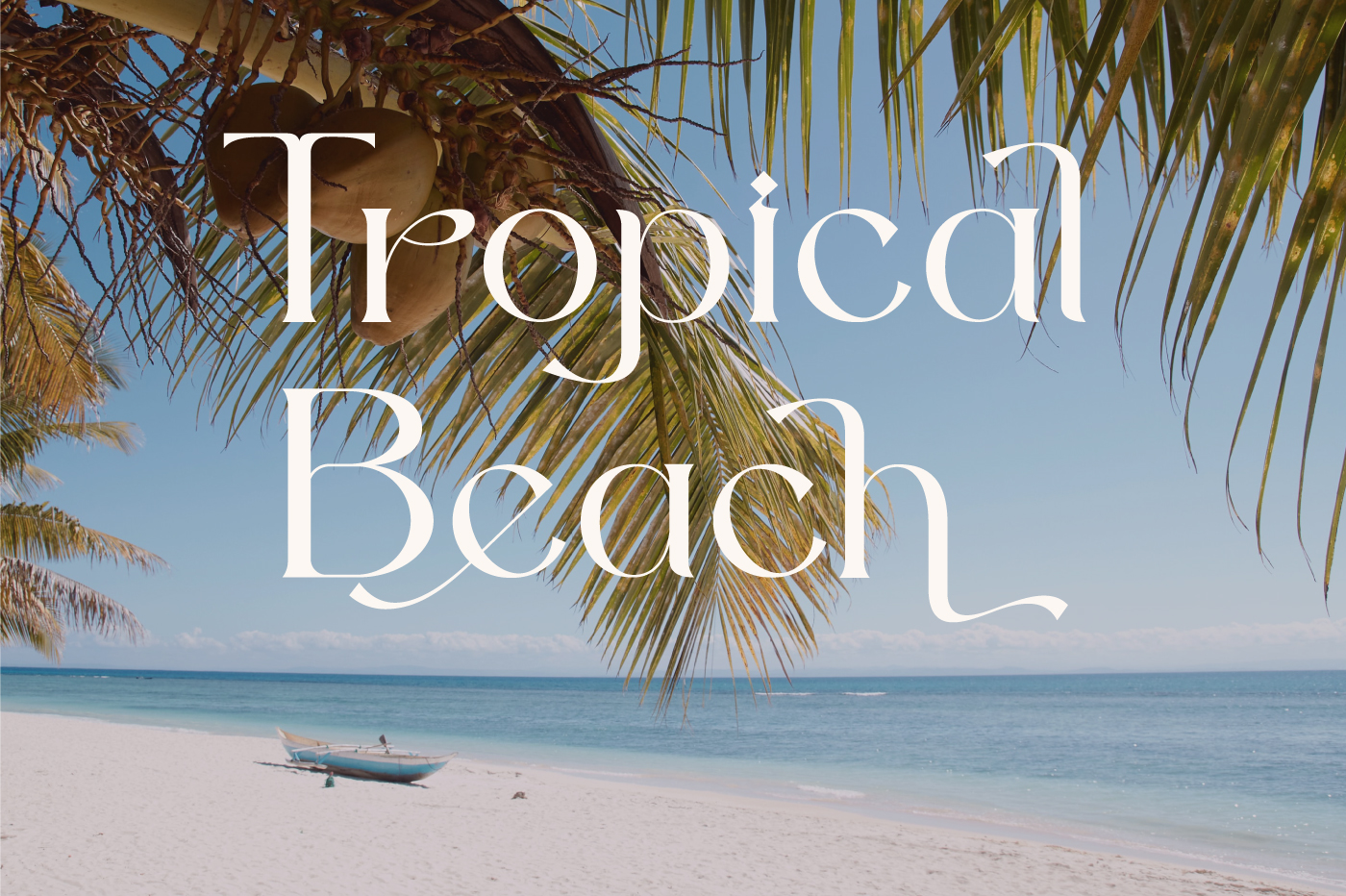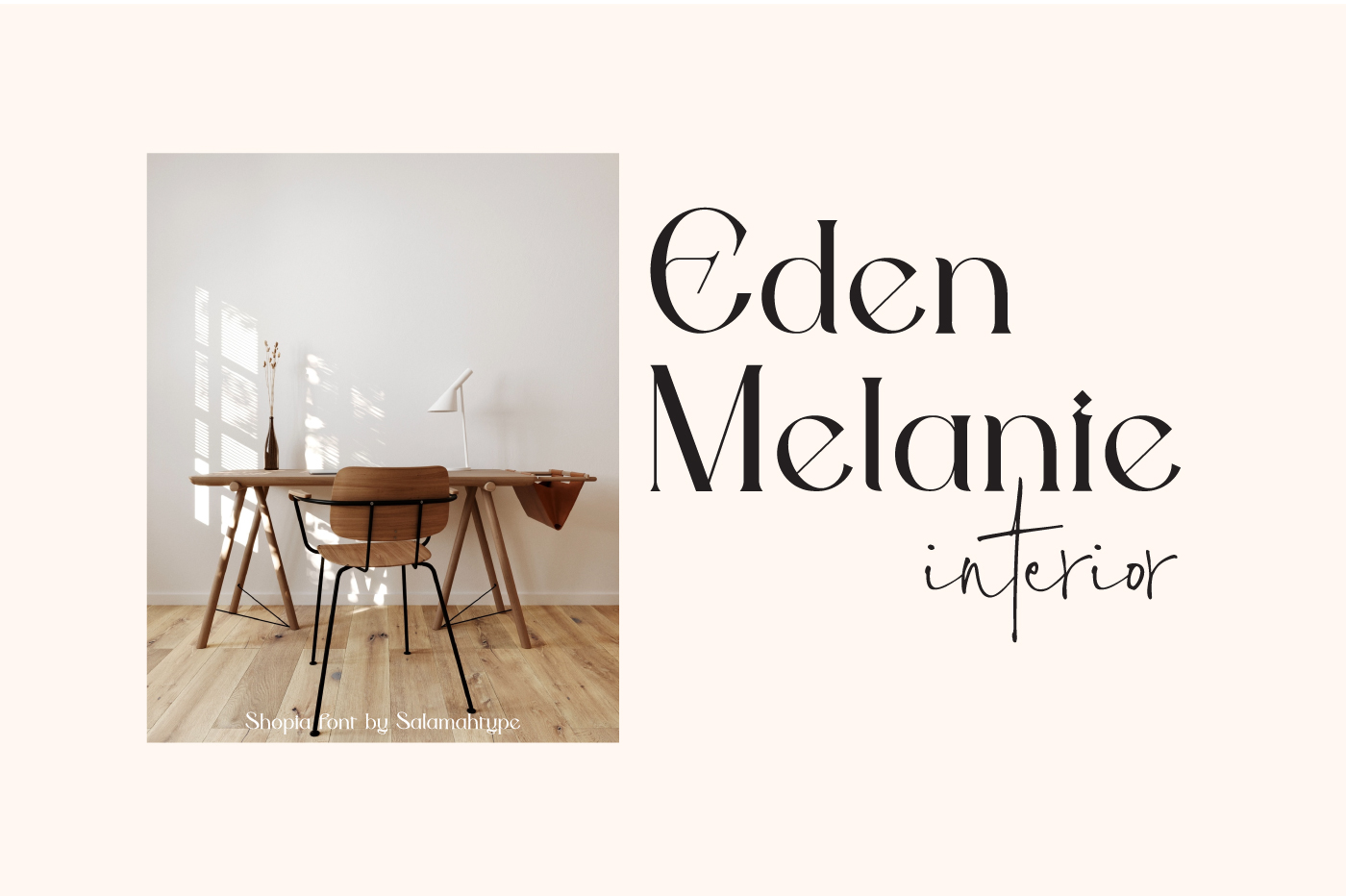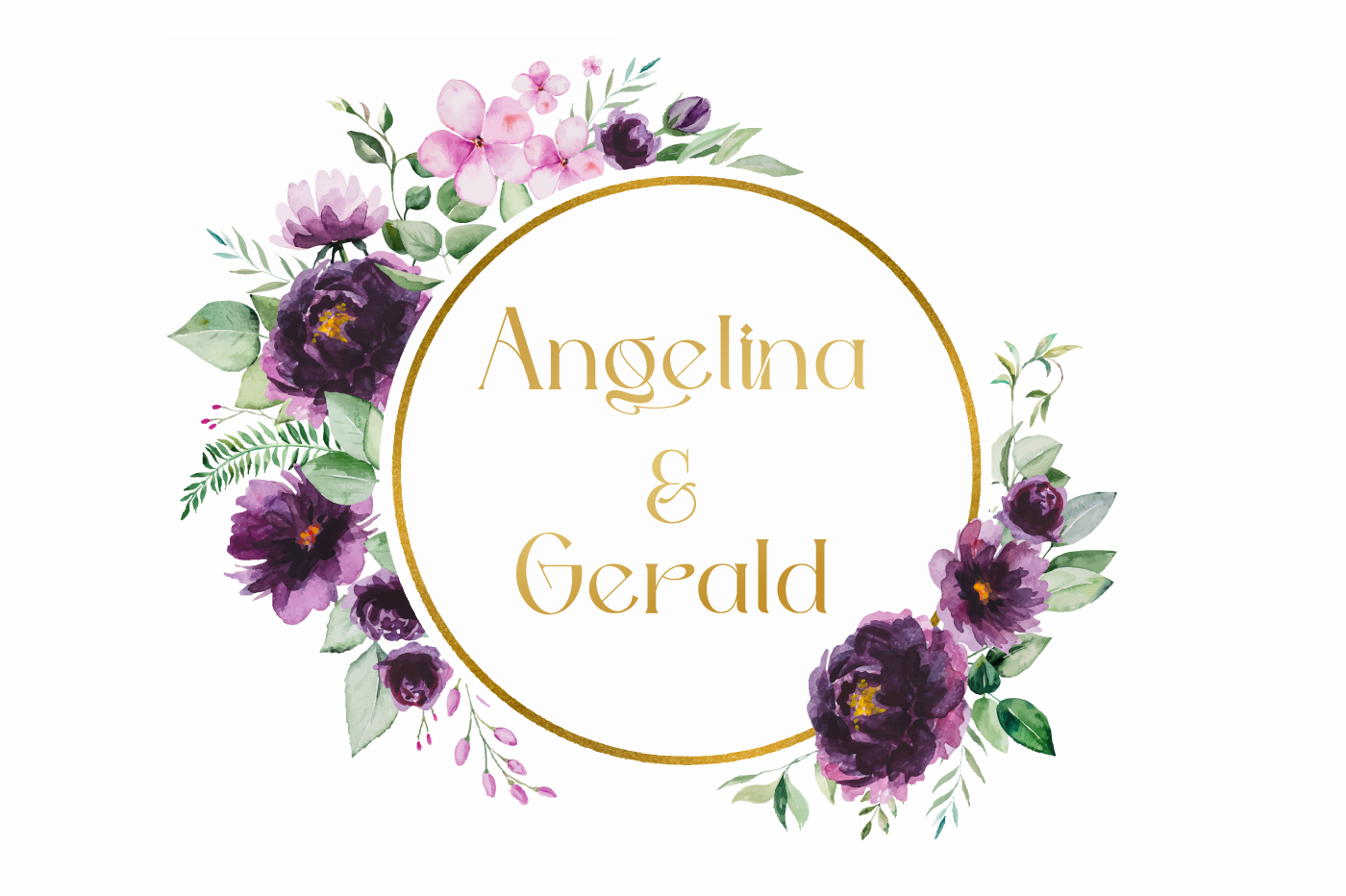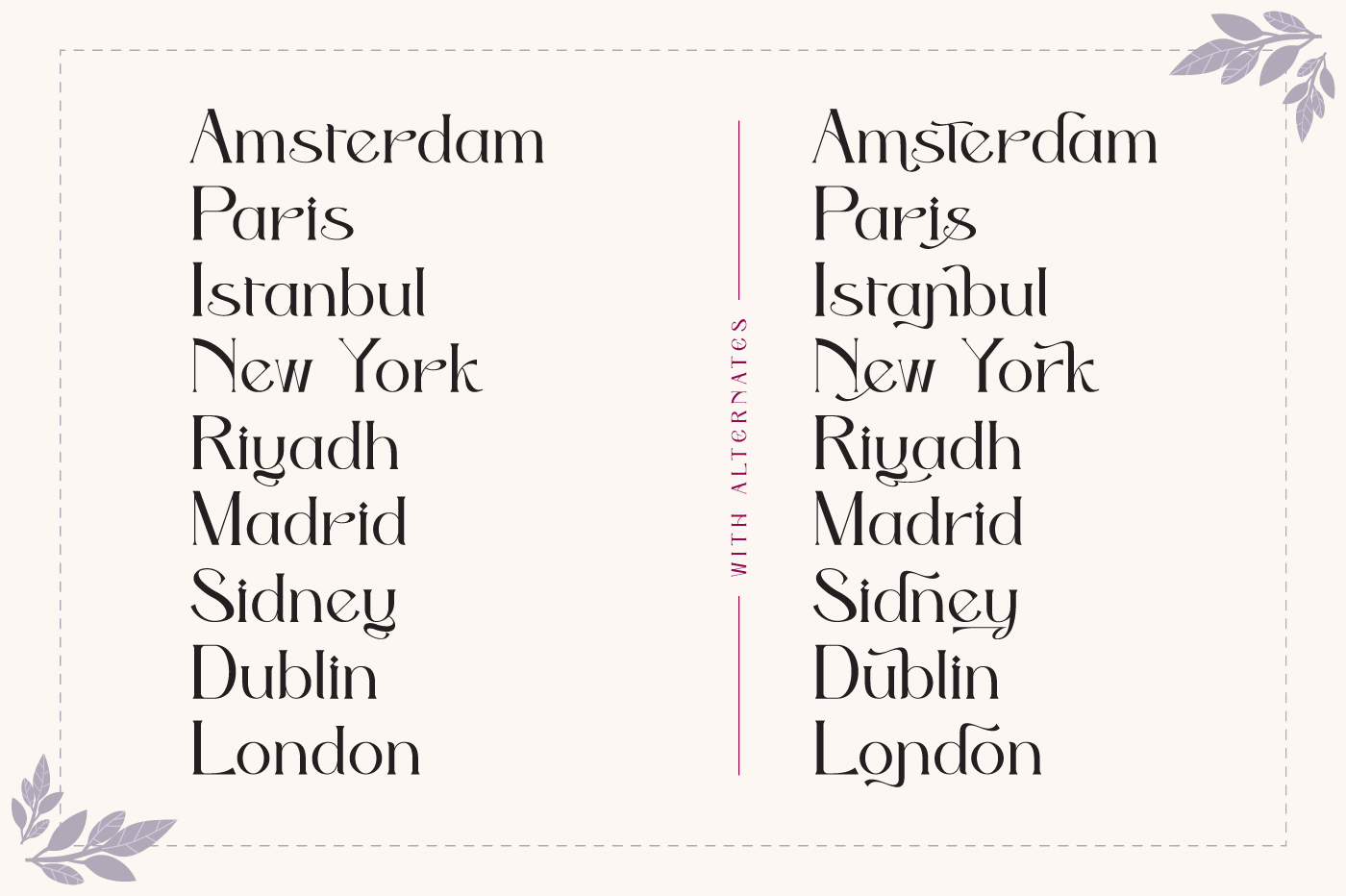
Shopia Serif Font
It’s a modern serif font with elegant style this font is perfect for branding projects, logos, social media posts, advertisements, product packaging, wedding invitations, product designs, label, photography, watermark, stationery and so much more.